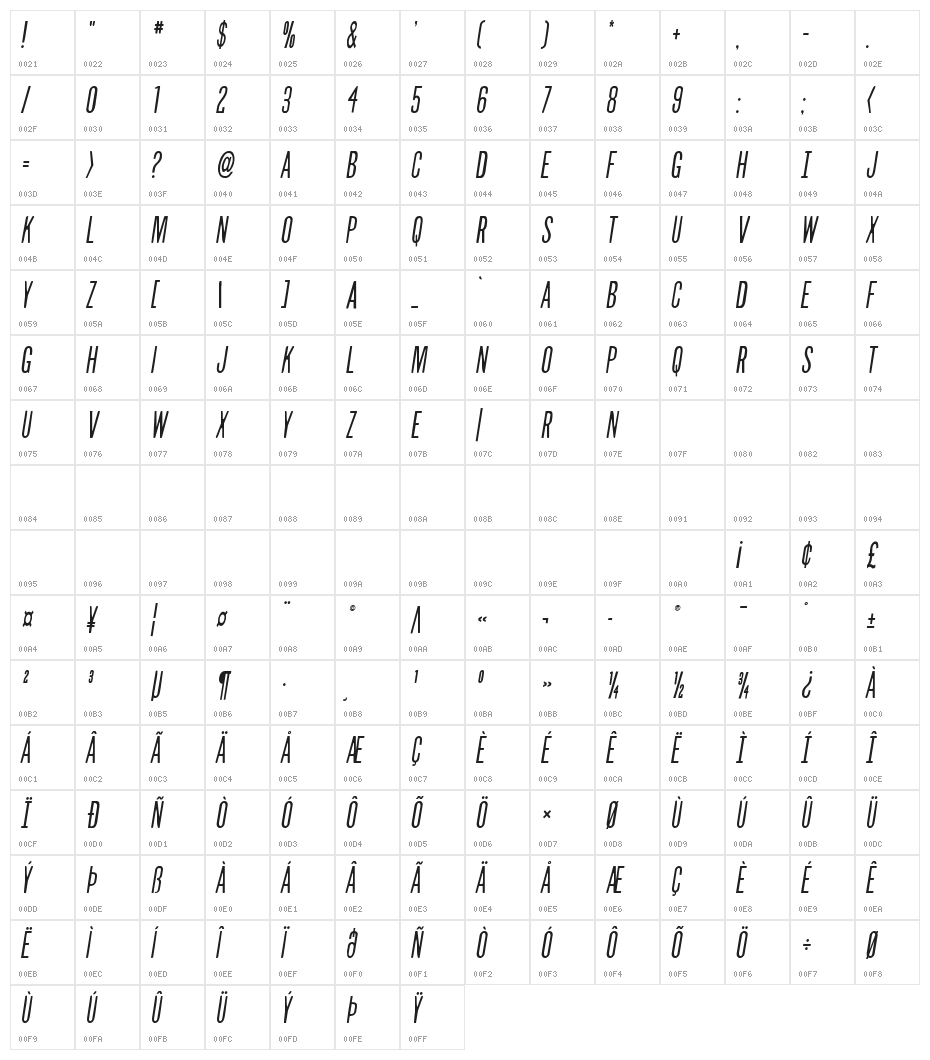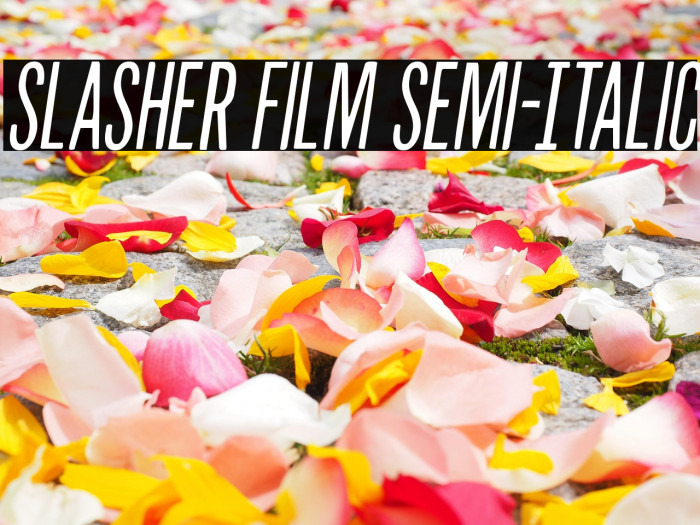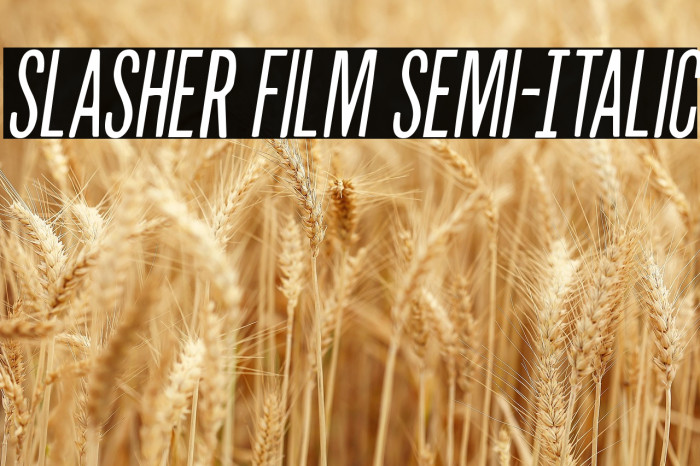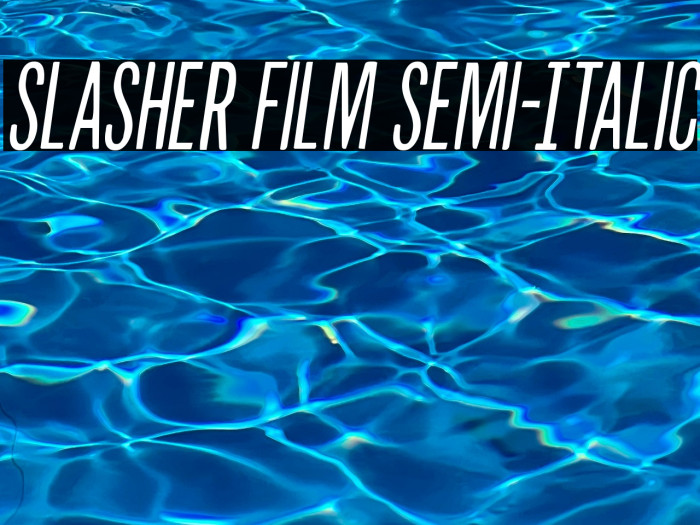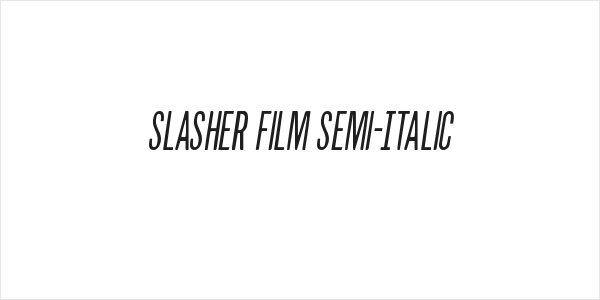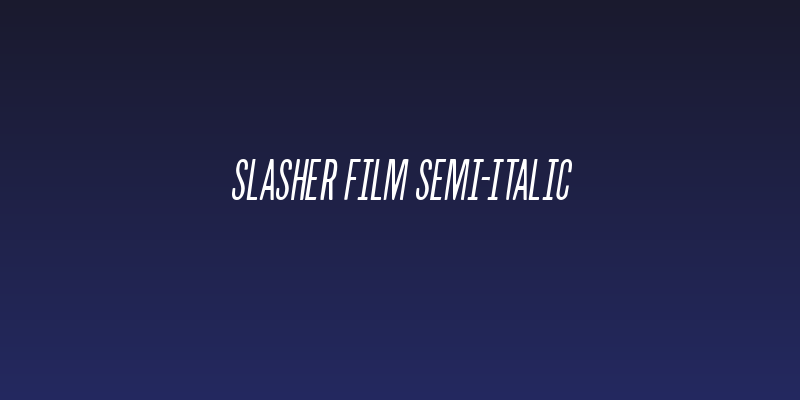
Slasher Film Semi-Italic Font
Slasher Film Semi-Italic Description
This font features a dynamic and edgy style with a semi-italic slant, giving it a sense of motion and urgency. The characters are tall and narrow, with consistent stroke widths that provide a sleek and modern appearance. The uppercase and lowercase letters maintain a cohesive look, while the numbers and special characters are designed to complement the overall aesthetic. The font's sharp angles and clean lines make it suitable for projects that require a bold and contemporary feel.
| Proposed Projects | Ideal for movie posters, album covers, branding materials, and any project needing a bold, contemporary touch. |